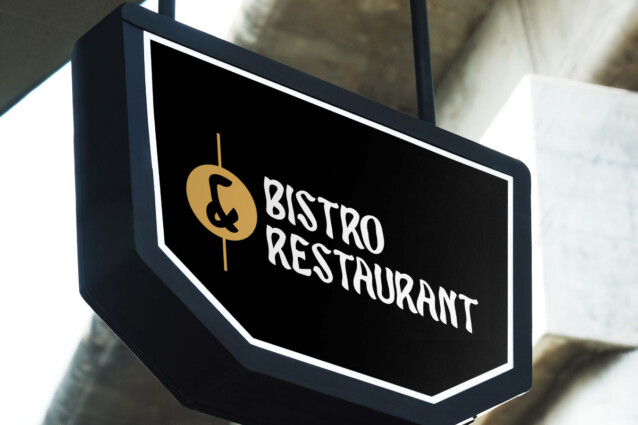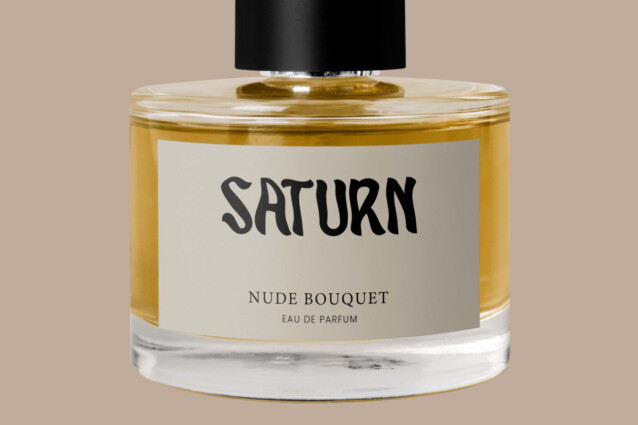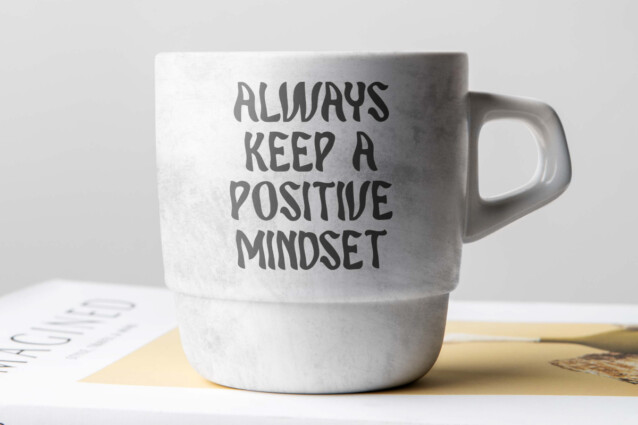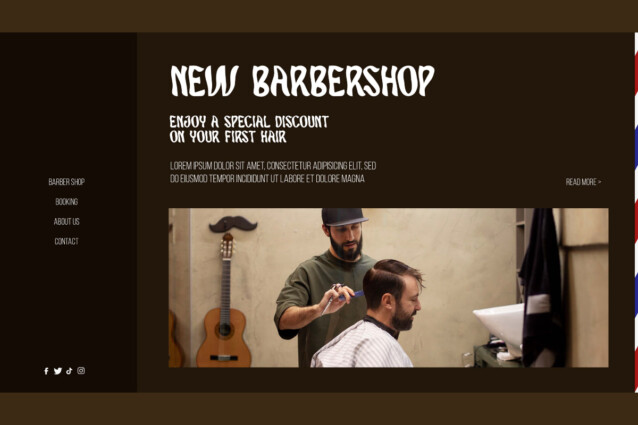
Askhole Font
Askhole Font is a horror display font, created by NoahType. This font has a wavy bold line shape that gives attractive looks. This font will suit many designs, such as brand image, business card, catalog, cover, custom design, invitation, label, menu, poster, quote, signage, stationery, web, and more!
Askhole Font includes full set of ALL CAPS for both Uppercase and Lowercase Basic Characters, Numerals and Punctuation. The characters of this font will give cool and stylish appearances and perfect choice for many industries, such as advertisement, barbershop, café, event organizer, fashion, food and beverage, movie, printing, publishing, restaurant, etc.